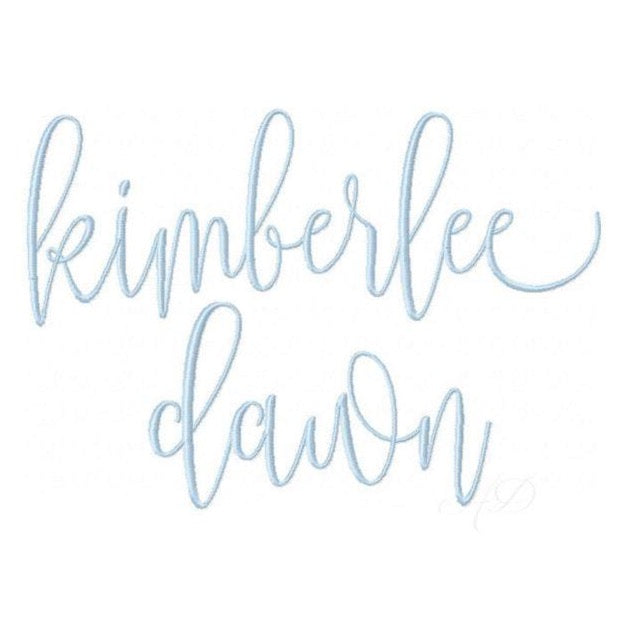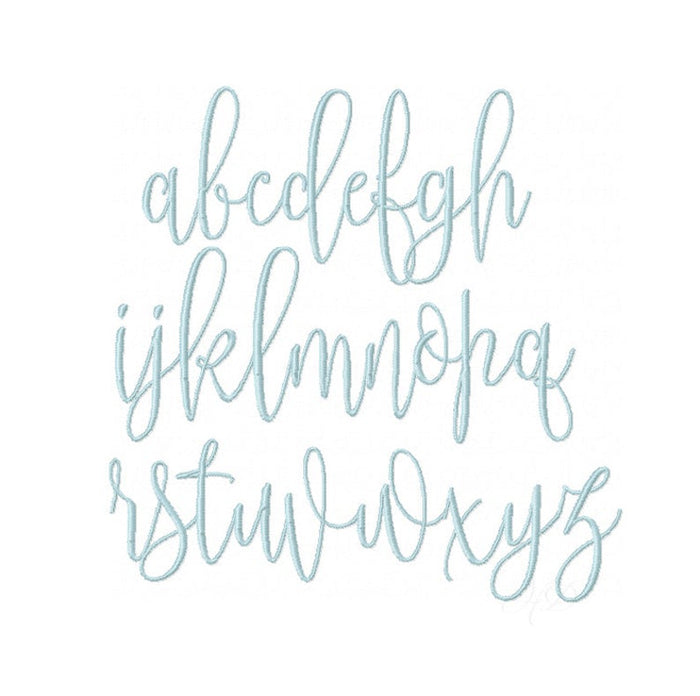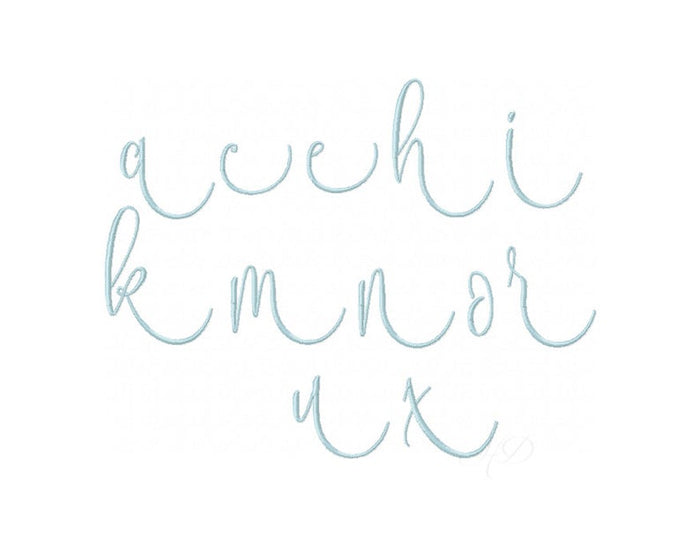
Kimberlee Dawn Embroidery Font Package
The Kimberlee Dawn Embroidery Font Package is perfect for crafters and DIY enthusiasts looking to add a unique touch to their designs. This delightful Bouncy Script Font features 26 individual lowercase letters and 12 alternative-ending letters, allowing for creative monogramming in a modern calligraphy style. Please note, it only includes lowercase letters to maintain its distinctive aesthetic.